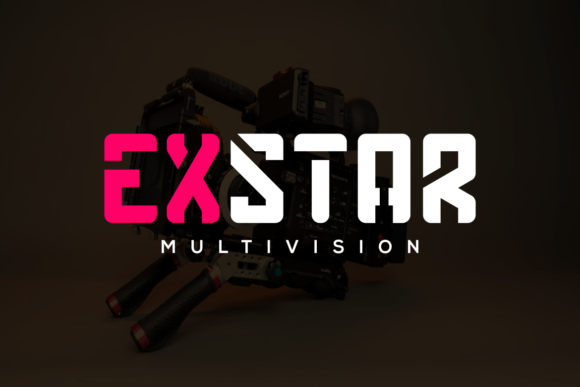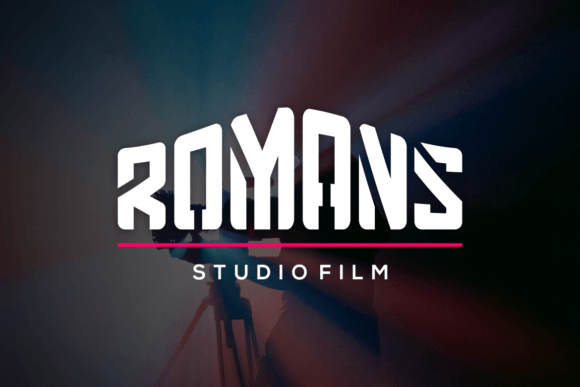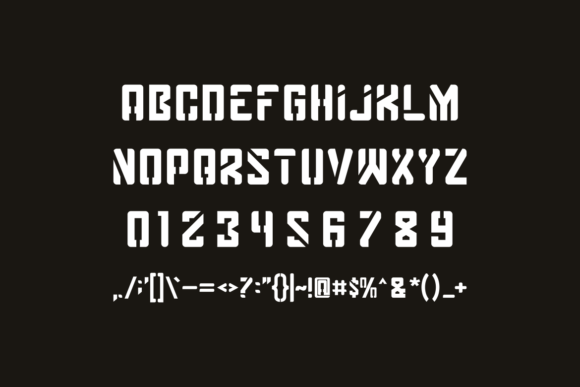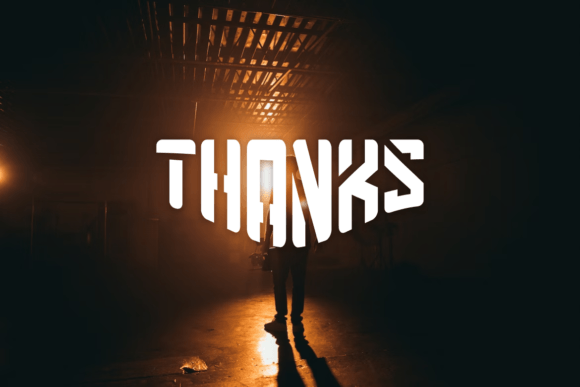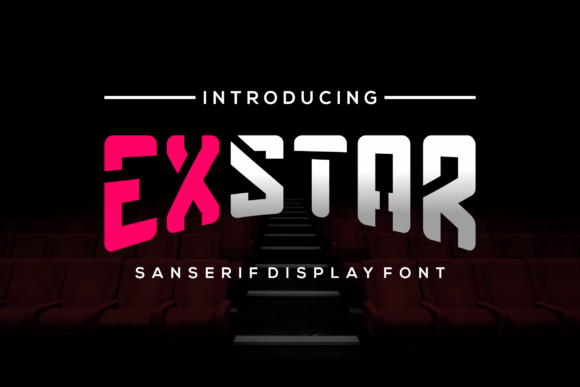
Introducing Exstar Font: The Bold and Assertive Sans Serif Game-Changer
In the world of typography, a good font can make all the difference in elevating your design to the next level. For designers and crafters looking for a bold and assertive sans serif font, Exstar Font is an excellent addition to your font library. With its unique characteristics and versatility, Exstar Font has the potential to transform any creation into a stunning masterpiece.
The Power of Exstar Font
Exstar Font is a bold and assertive sans serif font that commands attention. Its clean and modern design makes it perfect for a wide range of applications, from branding and advertising to packaging and digital media. The font’s assertive personality is sure to leave a lasting impression on your audience, making it an ideal choice for designers who want to make a statement.
Key Features of Exstar Font
• Bold and Assertive: Exstar Font is designed to make a statement. Its bold strokes and assertive personality make it perfect for headlines, titles, and any other application where you want to grab attention.
• Sans Serif: The font’s sans serif design gives it a clean and modern look that’s perfect for contemporary designs.
• Versatile: Exstar Font is incredibly versatile and can be used for a wide range of applications, from print to digital media.
• Easy to Read: Despite its bold design, Exstar Font is easy to read, making it perfect for body text and other applications where legibility is important.
Why Choose Exstar Font?
So, why should you choose Exstar Font for your next design project? Here are just a few reasons:
• Elevate Your Design: Exstar Font has the potential to elevate any creation into a stunning masterpiece. Its bold and assertive design is sure to leave a lasting impression on your audience.
• Stand Out from the Crowd: With Exstar Font, you can create designs that stand out from the crowd. Its unique characteristics make it perfect for designers who want to make a statement.
• Save Time: With Exstar Font, you can save time and effort in your design process. Its versatility and ease of use make it perfect for a wide range of applications.
How to Use Exstar Font
Using Exstar Font is easy. Here are a few tips to get you started:
• Headlines and Titles: Use Exstar Font for headlines and titles to grab attention and make a statement.
• Branding and Advertising: Use Exstar Font for branding and advertising applications to create a bold and assertive visual identity.
• Packaging: Use Exstar Font for packaging design to create eye-catching and memorable packaging.
• Digital Media: Use Exstar Font for digital media, such as social media graphics and website headers, to create a bold and assertive online presence.
In conclusion, Exstar Font is a bold and assertive sans serif font that’s perfect for designers and crafters looking to elevate their design to the next level. With its unique characteristics, versatility, and ease of use, Exstar Font has the potential to transform any creation into a stunning masterpiece. Whether you’re working on a branding project, advertising campaign, or packaging design, Exstar Font is an excellent addition to your font library.
Get Ready to Shine with Exstar Font